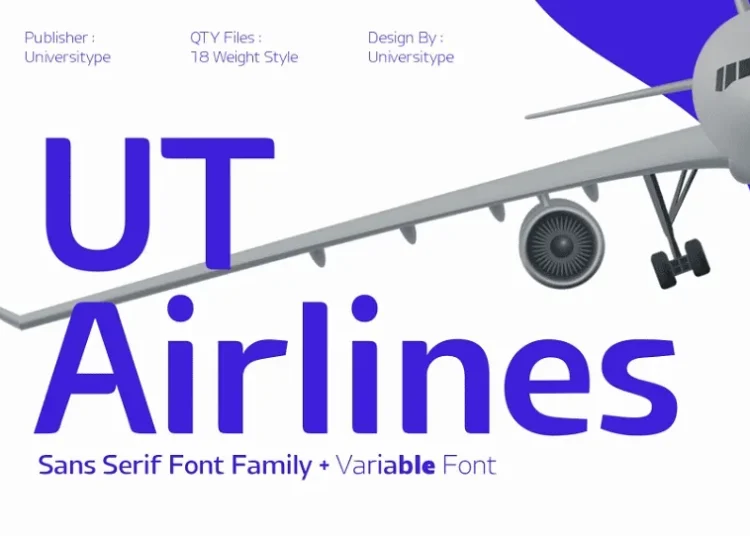
UT Airlines Font
UT Airlines is a dynamic sans serif font that captures the energy and focus associated with flight. This typeface reflects the sleek and modern aesthetics of contemporary aircraft, making it more than just a font—it’s a symbol of courage, power, and innovation.
Key Features of UT Airlines:
• Aviation-Inspired Design: UT Airlines embodies the essence of modern aviation, with a design that mirrors the sleek and streamlined look of today’s aircraft.
• Courage and Innovation: This font is not just a typeface; it’s an emblem that conveys boldness and forward-thinking. Ideal for brands that wish to project these values, UT Airlines helps your message soar above the rest.
• Versatility: While perfect for logos and branding in the aviation and tech industries, UT Airlines is versatile enough to be used across a wide range of design projects.
Ideal Uses for UT Airlines:
• Logos and Branding: Perfect for brands in the aviation, technology, or innovation sectors, helping them convey a message of power and progress.
• Advertisements and Marketing Materials: The clean and focused design makes it ideal for use in ads, brochures, and other marketing materials that need to make a strong impact.
• Web and Print Design: Whether for digital or print, UT Airlines ensures your design projects have a modern, professional look.